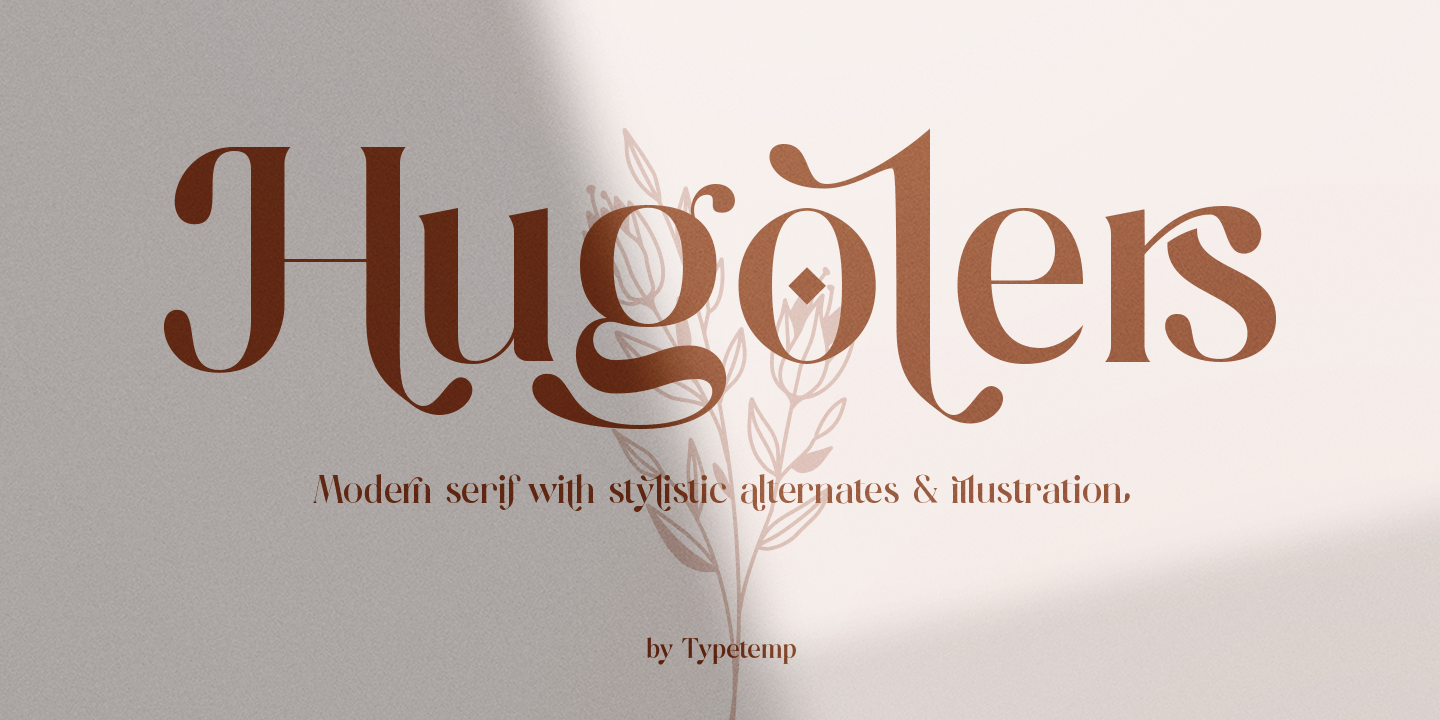
Add luxury and contemporary flair to your designs with Hugolers Stylish Modern Font Free Download. This sleek serif typeface features elegant curves, high contrast strokes, and a polished modern look—perfect for fashion branding, upscale packaging, editorial layouts, wedding invitations, and stylish social media graphics. Hugolers Stylish Modern Font Free Download blends timeless sophistication with a trendy edge, making it ideal for high-end creative projects.
The refined letterforms of Hugolers Stylish Modern Font offer excellent readability while delivering a dramatic, fashionable statement. Whether you're crafting bold logos, beautiful magazine spreads, or premium marketing materials, this font elevates your design work with elegance and confidence.